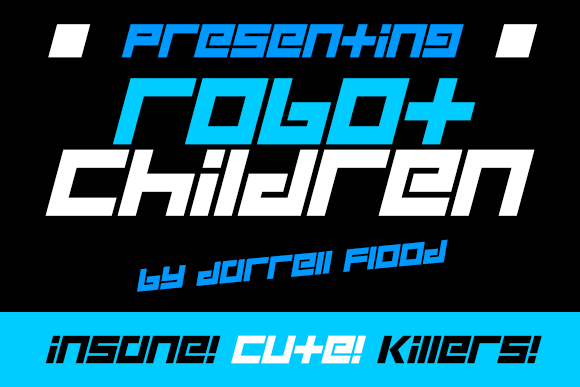
Step into a realm of boundless creativity with Robot Children Font, a display font that defies boundaries and sparks imagination. Its angular architecture and pixel-based composition evoke a sense of nostalgia, while its futuristic undertones propel you into the realm of innovation.
Unleash your inner artist and embrace the bold and beautiful aesthetics that Robot Children Font brings to your designs. Whether you're conjuring up club events with an electrifying atmosphere, encapsulating the essence of retro designs with a modern twist, or venturing into the captivating world of sci-fi themes, this font is your ultimate companion.
Dive into the world of Robot Children Font and let your designs soar. Its meticulously crafted characters, reminiscent of pixels from a forgotten era, create a captivating visual experience that transports you to a dimension where imagination reigns supreme.
As you explore the depths of this pixel-perfect font, discover the endless possibilities it holds. Its angular strokes and sharp edges exude a sense of modernity that blends seamlessly with the retro charm of its pixelated design. With Robot Children Font, you'll have the power to craft designs that resonate with both the past and the future.
With Robot Children Font, the ordinary becomes extraordinary. Transform your designs into captivating masterpieces that leave a lasting impression. Experience the thrill of creating club events that pulsate with energy and excitement, retro designs that ooze vintage charm with a contemporary twist, and sci-fi themes that transport your audience to uncharted galaxies.
Unleash your creativity and embrace the boundless potential of Robot Children Font. Let its angular elegance and pixelated charm elevate your designs to new heights. Prepare to embark on a journey of innovation and imagination, where the possibilities are limitless.